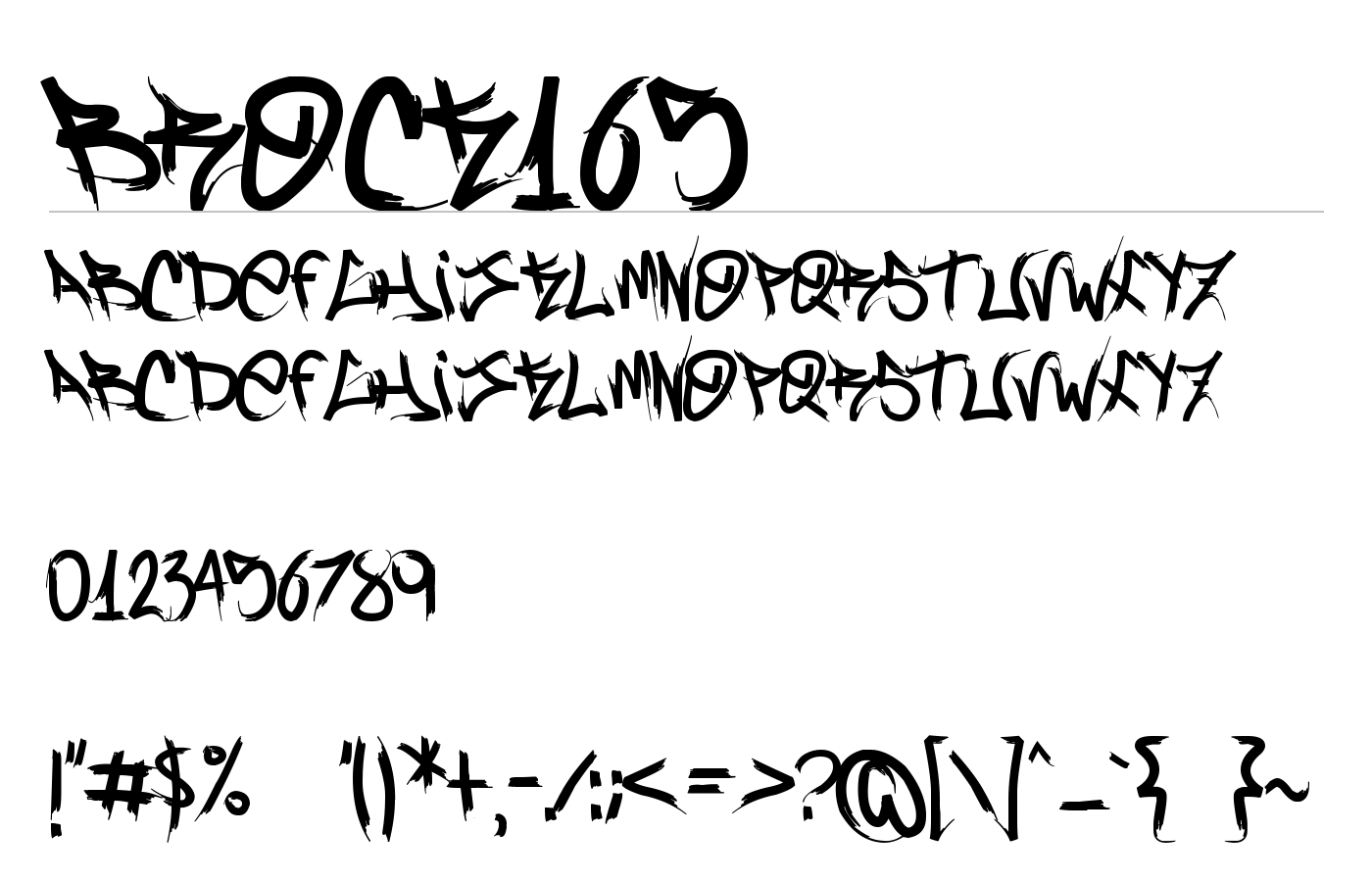
Brock165 is a bold, graffiti-inspired display font with sharp, dynamic strokes that give it an edgy and rebellious personality. Its irregular, hand-drawn style features angular letterforms and high contrast, making it perfect for urban-themed designs, streetwear branding, posters, and edgy headlines where a raw, artistic vibe is desired.
About Brock165 Font